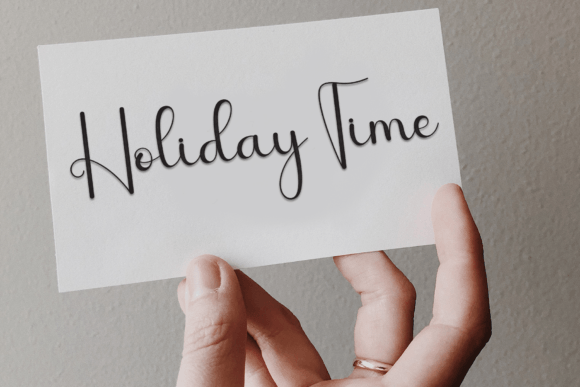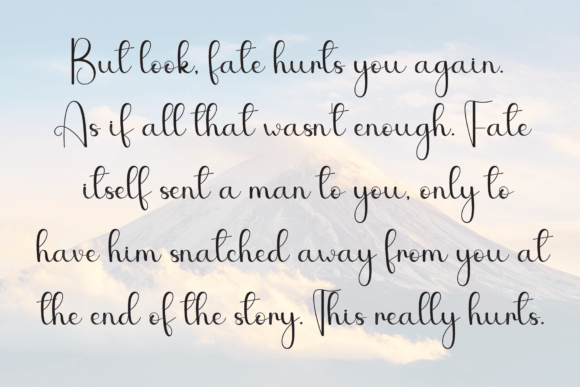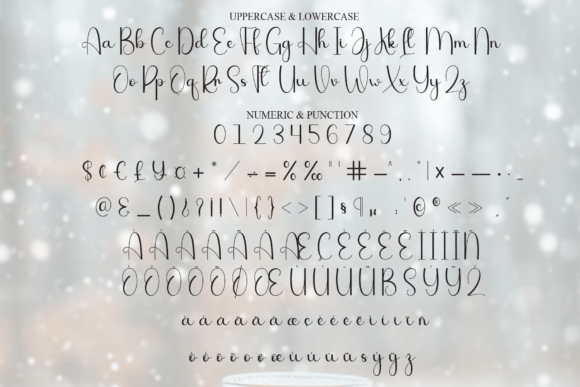
Introduction to Rainy Wintry Font
There’s something magical about curling up with a cup of hot cocoa on a drizzly winter evening, surrounded by twinkling lights and the soothing sound of raindrops on the roof. It’s moments like these that spark creativity, and for designers, the perfect font can be the key to unlocking that special something. Enter Rainy Wintry Font, a stunning handwritten script that’s sure to add a touch of elegance and charm to any design project.
Whether you’re working on a wedding invitation, a logo, or a branding project, Rainy Wintry Font is the perfect design resource to bring your creative vision to life. With its flowing, delicate strokes and high-quality rendering, this font is perfect for designers who crave a sophisticated and personal touch. And the best part? It’s available for free download, making it an accessible and valuable addition to any design arsenal.
With its transparent background and versatility, Rainy Wintry Font is the perfect tool for designers who want to add a little extra magic to their creative projects. So why settle for ordinary when you can have extraordinary? Let Rainy Wintry Font be the spark that ignites your next design masterpiece.
Key Features of Rainy Wintry Font
- Unique, hand-drawn design perfect for creative projects requiring a touch of whimsy and charm.
- High-quality font with transparent background, ideal for designers looking to add a subtle, textured effect to their designs.
- Includes multiple styles and weights, allowing designers to experiment with different looks and feels.
- Perfect for winter-themed designs, holiday projects, and any creative endeavor that requires a wintry atmosphere.
Honest Review: Rainy Wintry Font
I recently stumbled upon the Rainy Wintry Font, and I must say it’s been a great addition to my design resource library. The font’s unique blend of wintry and rainy elements makes it perfect for creative projects that require a touch of whimsy.
- ✨ High-quality design that’s perfect for both digital and print projects.
- ✨ Transparent background makes it easy to use on any design surface.
- ⚠️ Limited font sizes and styles, which might make it less versatile for complex designs.
- ⚠️ Not ideal for projects that require a lot of text, as the font can become overwhelming.
Overall, I’m impressed with the Rainy Wintry Font, and I would recommend it to designers looking for a unique and high-quality design resource for their creative projects. Just keep in mind its limitations and use it accordingly.
Tips for Getting the Most Out of Rainy Wintry Font
To get the most out of the Rainy Wintry Font, use it in conjunction with other design elements, such as images and graphics. Experiment with different font sizes and colors to achieve the desired effect. Also, consider using the font with a transparent background to create a unique visual effect.
Common Use Cases for Rainy Wintry Font
The Rainy Wintry Font is perfect for creating winter-themed graphics, such as Christmas cards and holiday invitations. It’s also ideal for designing creative projects, such as wedding invitations and baby shower invitations. With its unique and high-quality design, the Rainy Wintry Font is a valuable addition to any design resource library.